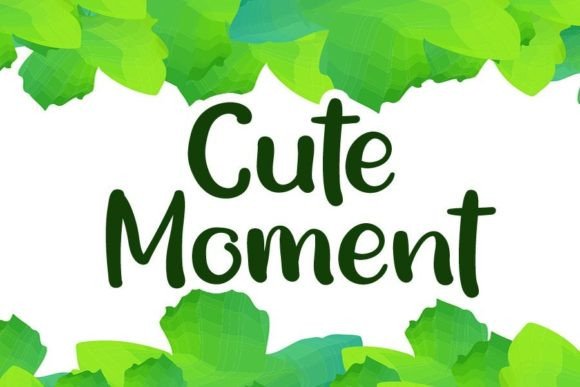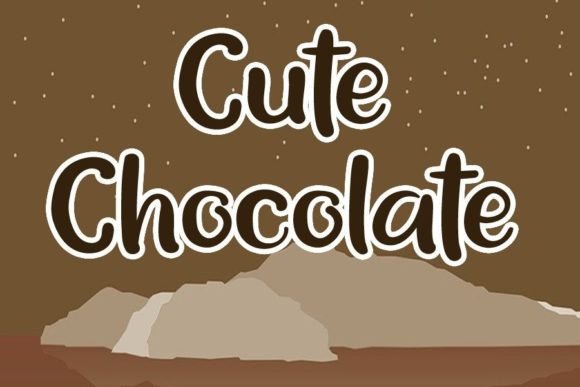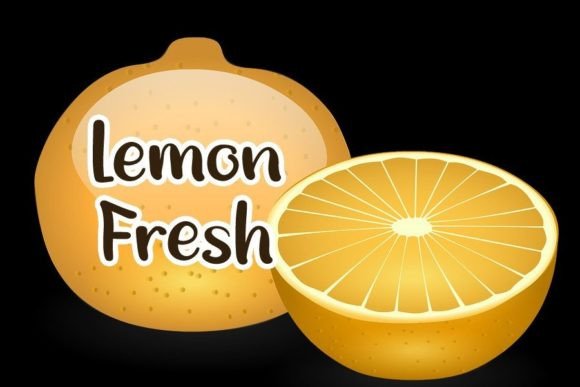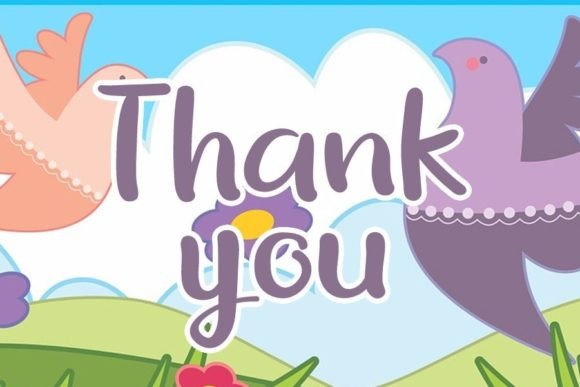
Unlock the Power of Visual Storytelling with the Perfect Font
Have you ever stared at a blank canvas, searching for the perfect words to bring your design to life? It’s that moment of creative frustration when you wish you had the right tools to express your vision. As designers, we’ve all been there, but what if I told you that the solution lies in a beautiful, fresh font that can elevate your designs and take your business to the next level?
Meet the Holla Beach Font, a stunning font that’s perfect for a wide range of design purposes, from YouTube banners and cover logo mockups to wedding invitations and ID cards. Its unique and simple design makes it a valuable addition to any designer’s toolkit, allowing you to create stunning visuals that capture your audience’s attention and leave a lasting impression.
Holla Beach Font Key Features
- Font Size: 6,000+ glyphs, including a wide range of characters and symbols
- Unique Characteristics: A fun, playful script font with a beachy vibe, perfect for summer-themed designs and projects
- Language Support: Supports multiple languages, including Latin, Greek, Cyrillic, and more
Holla Beach Font Review
When I first laid eyes on Holla Beach, I was immediately drawn to its laid-back, surfer vibes. ✨ The font’s playful personality and unique character set it apart from more generic beach-inspired fonts.
- ✨ Unique and quirky character set that’s perfect for adding a touch of personality to your design.
- ✨ Great for creating a relaxed, beachy atmosphere.
- ✨ Works well in a variety of contexts, from logos to social media graphics.
That being said, there are some limitations to consider:
- ⚠️ May not be the best choice for formal or professional projects.
- ⚠️ Can be a bit over-the-top or cheesy if used in excess.
- ⚠️ Limited font weights and styles may limit its versatility.
Overall, I think Holla Beach is a fun and unique font that’s perfect for adding some personality to your design. Just be mindful of its limitations and use it in moderation to avoid overwhelming your audience.
Holla Beach Font Practical Application Guide
Getting the Most Out of Holla Beach Font
To get the most out of Holla Beach Font, experiment with different font combinations and styles to achieve a unique look. Use the font in combination with bold and italic text to add emphasis and create visual interest. Also, consider using the font in conjunction with other design elements, such as images and graphics, to create a visually appealing composition.
Holla Beach Font is commonly used for:
- Beach-themed designs and graphics
- Summer-themed marketing materials
- Travel and tourism branding
- Water sports and recreation branding
Alternatives to Holla Beach Font
Great Vibes is a fun, handwritten font perfect for creating a laid-back and casual atmosphere. It’s ideal for use in posters, social media graphics, and other promotional materials where a carefree vibe is desired.
Compared to Holla Beach Font, Great Vibes has a more relaxed and informal feel, making it suitable for a wider range of applications. While Holla Beach Font has a more tropical and beachy feel, Great Vibes is more versatile and can be used in various contexts.
Lato is a modern sans-serif font that is highly legible and versatile. It’s perfect for use in body text, headings, and titles where a clean and sophisticated look is desired.
Compared to Holla Beach Font, Lato has a more minimalist and professional feel, making it suitable for use in corporate materials, websites, and other formal applications. While Holla Beach Font is more playful and attention-grabbing, Lato is more understated and elegant.